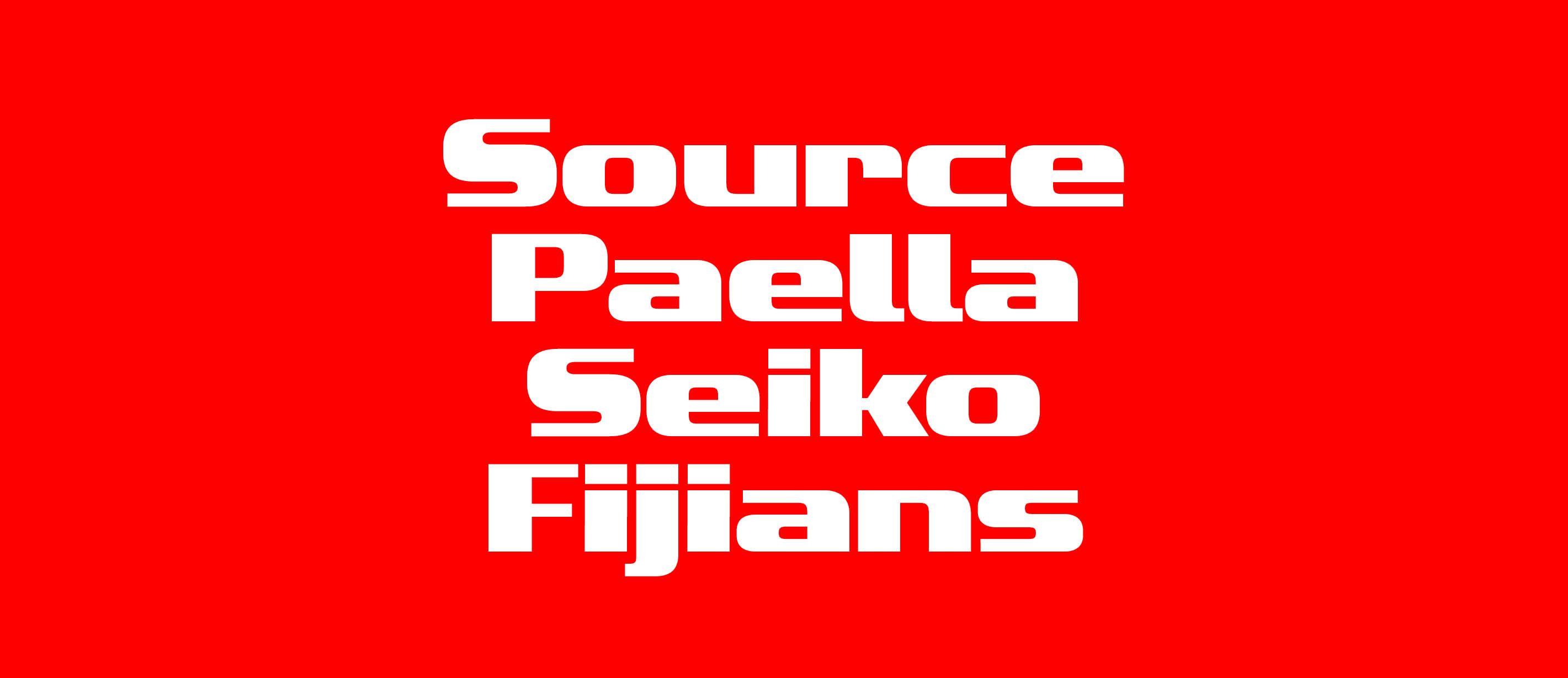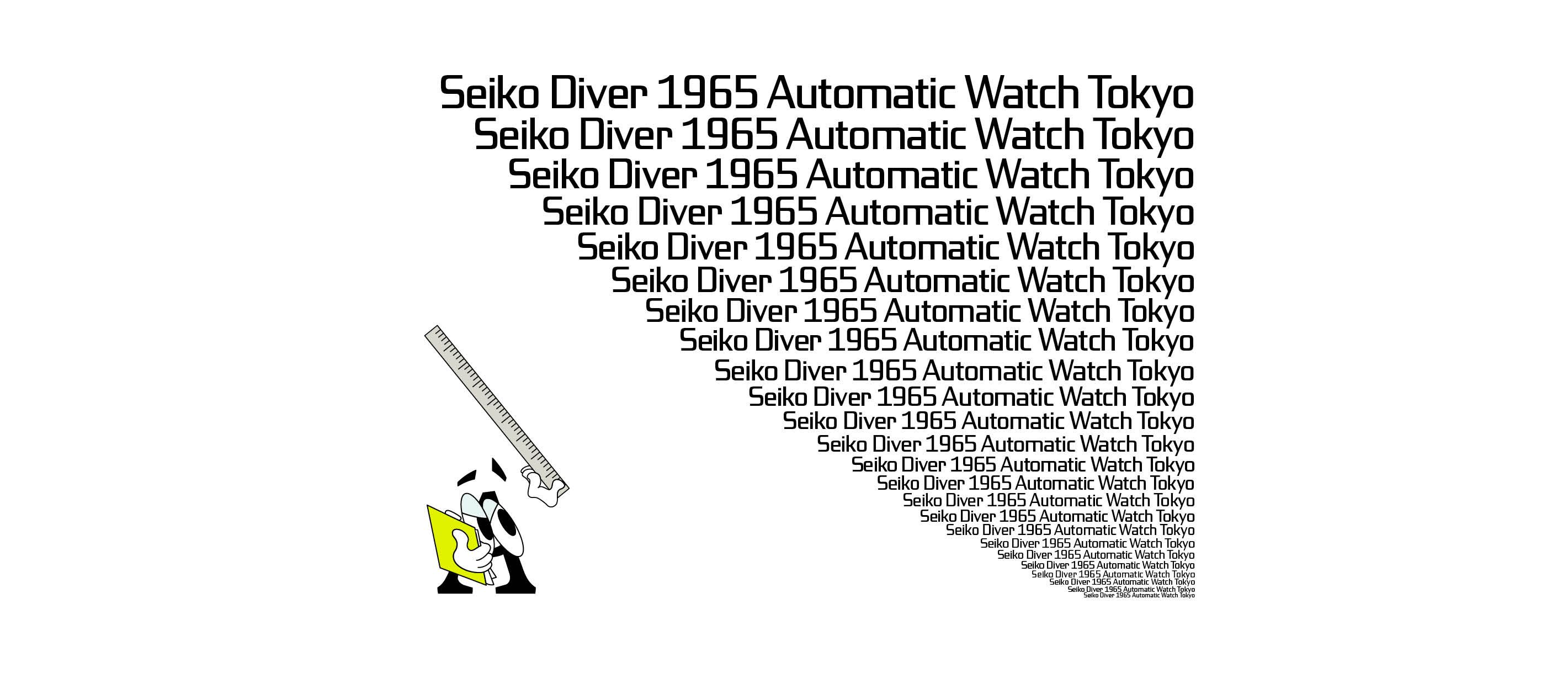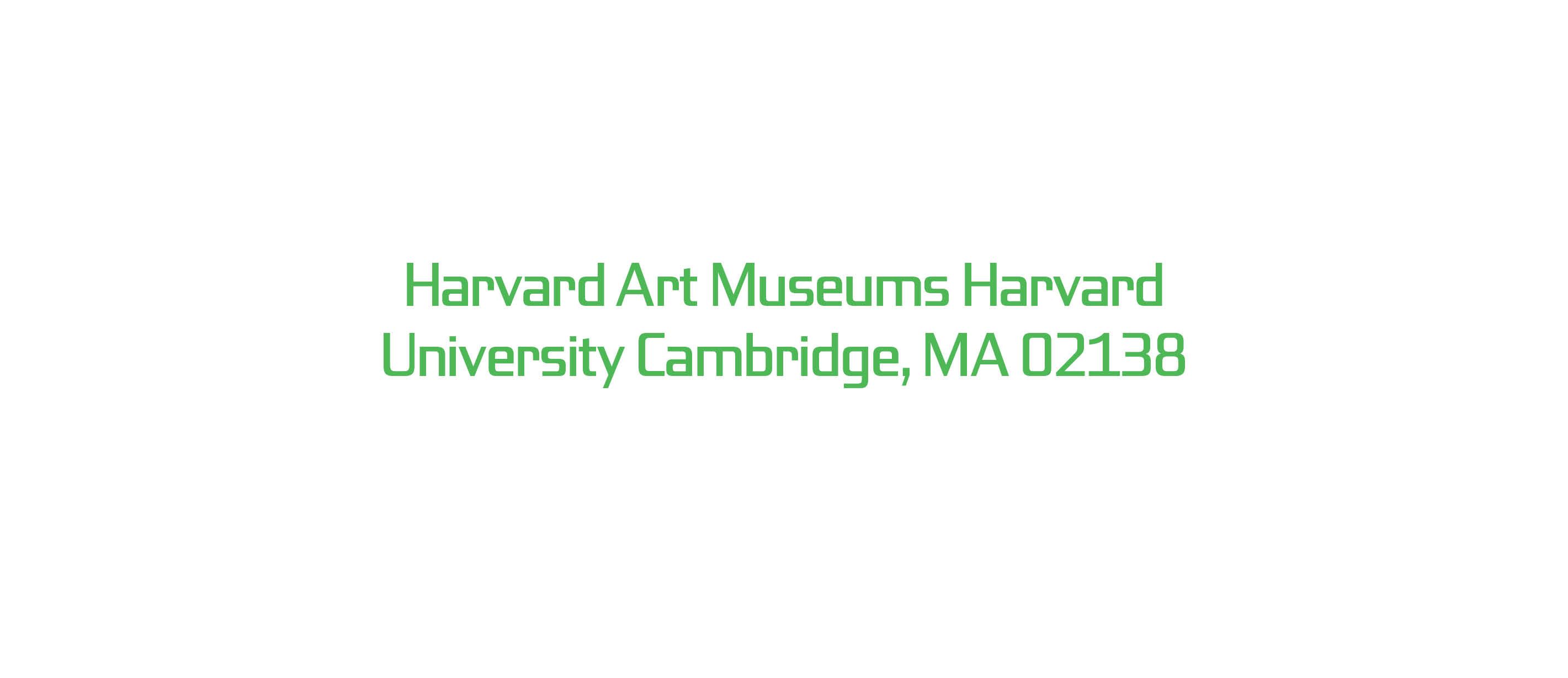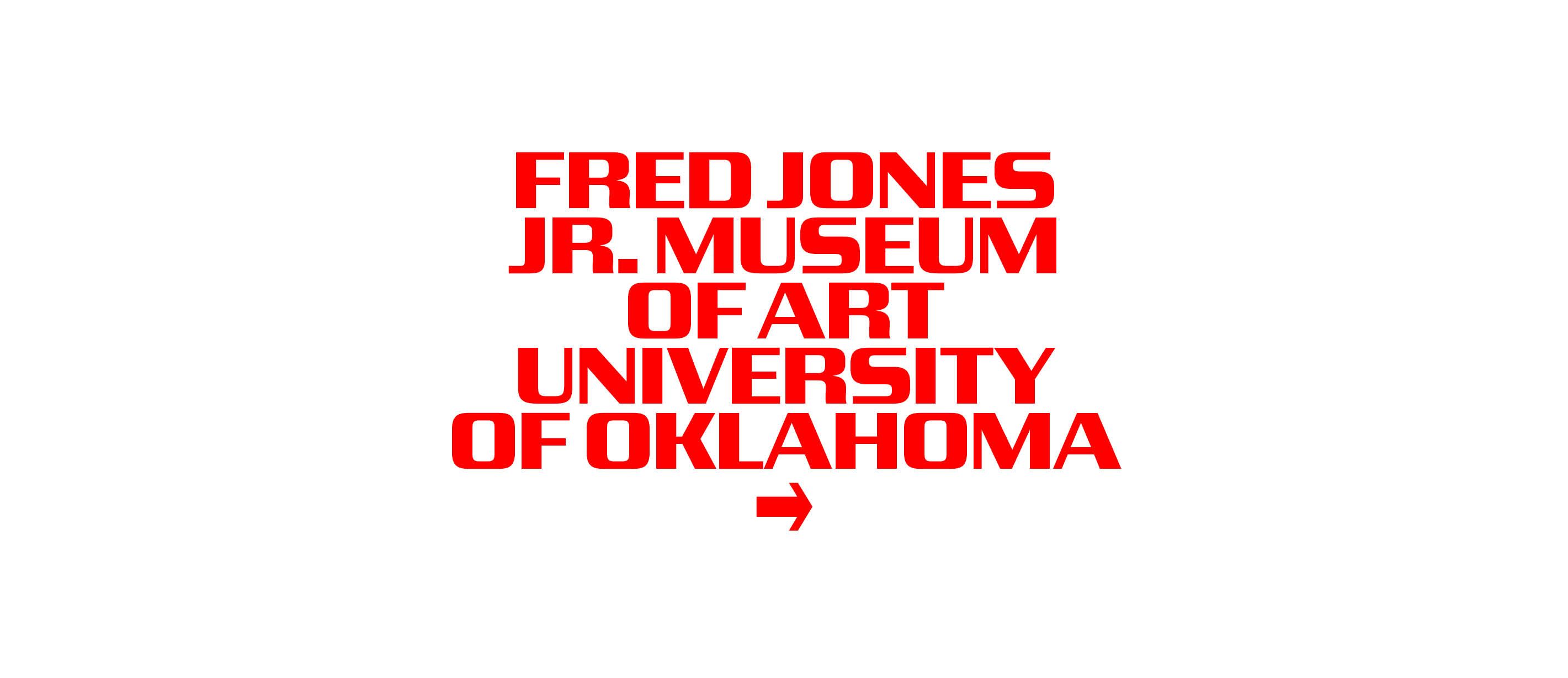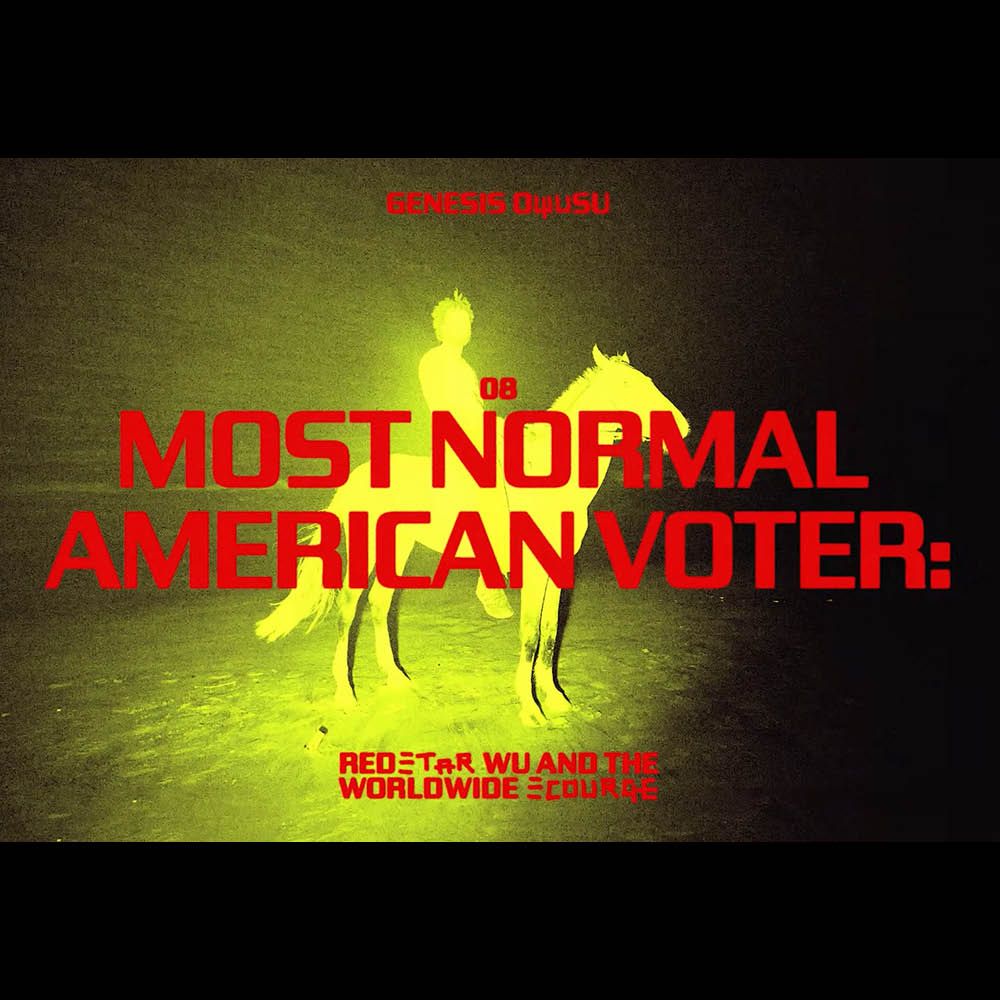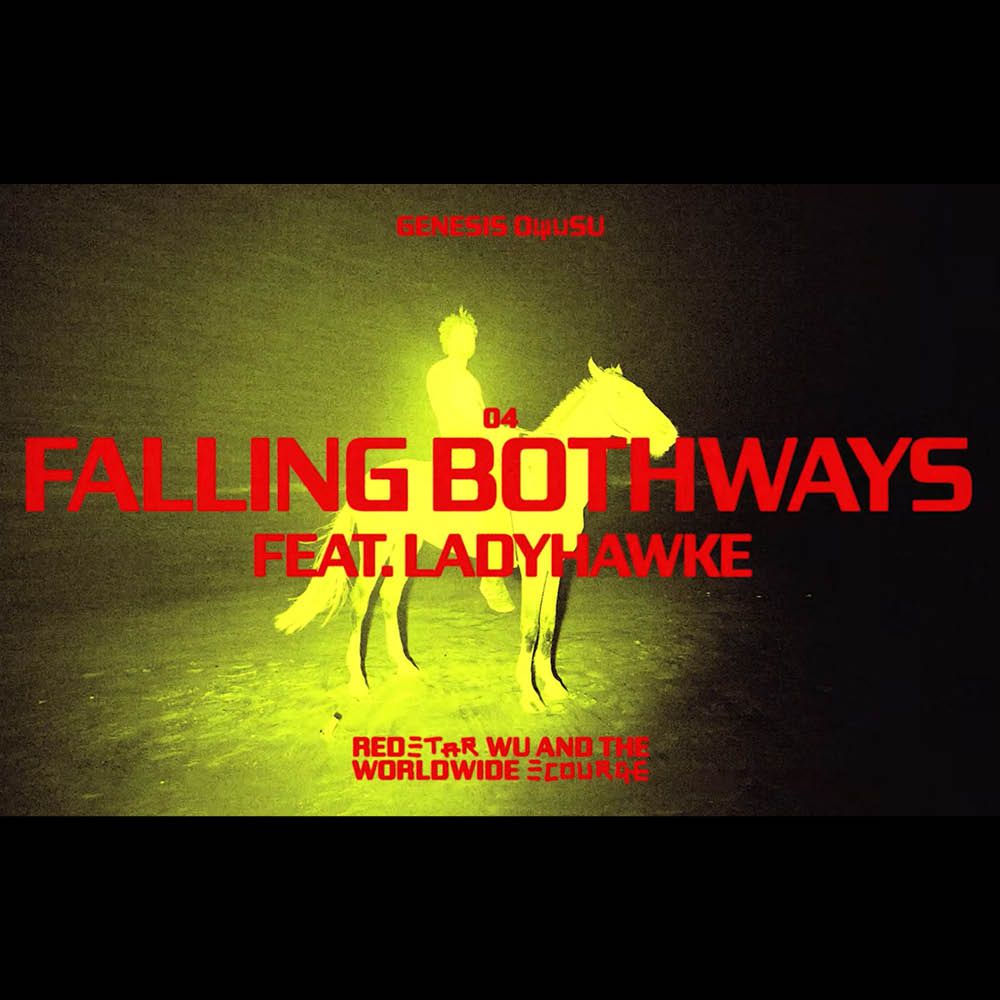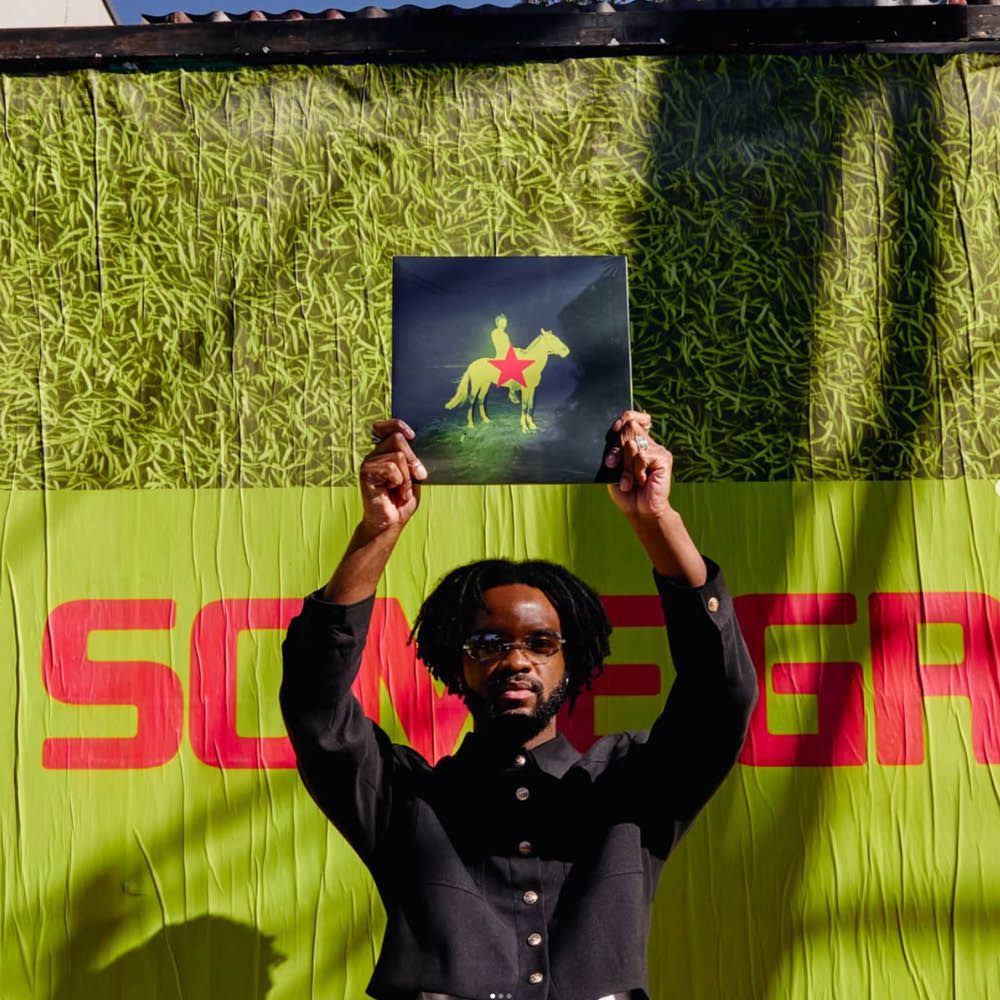
Genesis Owusu album design by Pauline Heppeler
Jt Multona stands as a timeless classic, a typeface that has evolved through multiple redesigns spanning the entirety of the 20th century, reflecting our interpretation of this particular genre. The distinct squarish letter shapes and the provision of two sets of italic styles make Jt Multona a versatile tool for designers, enabling a diverse range of creative options in display designs. In the course of our research, we observed the diverse applications of this typeface genre. From decorating shop windows to enhancing bicycle frames, kitchen equipment, and even boats, it has demonstrated its versatility and aesthetic charm in various unconventional settings. This flexibility underscores the lasting appeal of this typeface style and its ability to seamlessly fit into various visual settings. At the outset of the research, one of the typefaces that captured our attention in this genre was Gigant, a 1920s typeface by Genzsch & Heyse. While the design retained a connection to the original, it underwent many tweaks and expansions into various weights.
In line with our commitment to inclusivity and meeting diverse design needs, Jt Multona features Cyrillic support. With numerous redesigns within this specific genre, its enduring popularity is underscored by its extensive use worldwide. Whether designers seek a touch of nostalgia or a classic yet modern aesthetic, Jt Multona stands as a reliable choice. The square letter shapes and dual italic styles offer designers a dynamic tool for creative expression, enabling experimentation and innovation across a broad spectrum of visual applications. In essence, Jt Multona it’s a link connecting the past, present, and future of design, embodying the enduring charm of timeless classics.